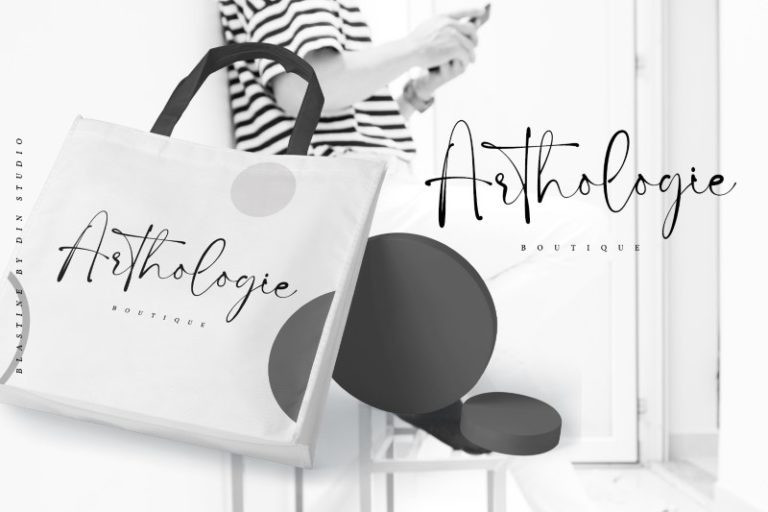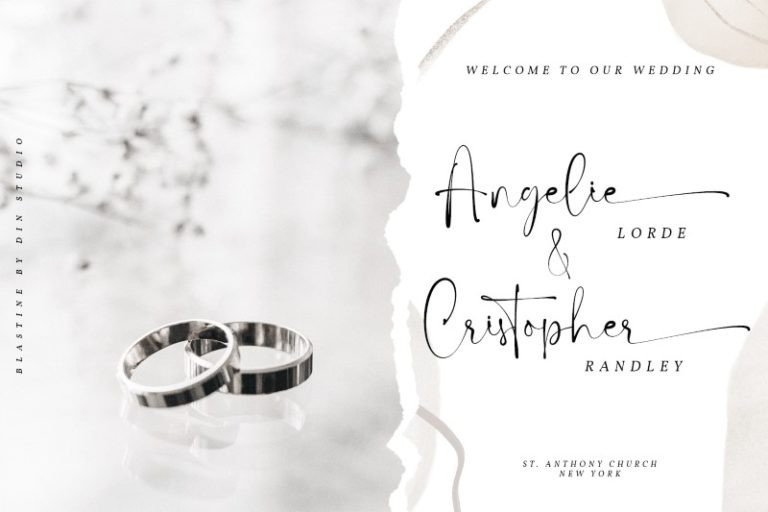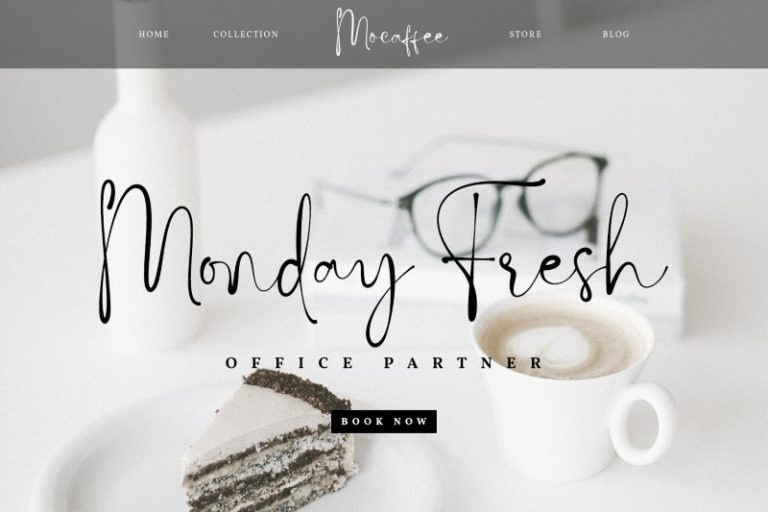
Blastine Script Font
This font is a quality script that is written casually and quickly has many alternative letters, with a front and back tail that adds to a more attractive appearance. It brings a modern and attractive typeface. Made for any professional project branding. It is the best for logos, branding, wedding and quotes.